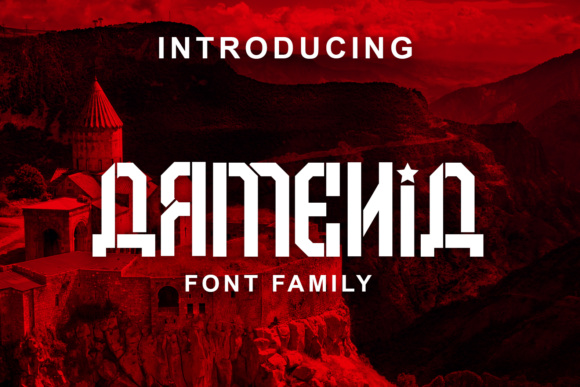
The Armenia Font: A Hidden Gem for Designers and Crafters
I’ll never forget the time I was working on a project for a client who wanted a bold, eye-catching font to match their brand’s personality. I scoured the internet, tried countless fonts, but nothing seemed quite right. That was until I stumbled upon the Armenia Font. 💡
This striking font family in an old Russian style has been a game-changer for me, and I’m excited to share it with you. The Armenia Font is perfect for t-shirts, banners, headlines, and more. Its unique blend of classic and modern elements makes it a versatile choice for designers, crafters, and creative hobbyists alike.
• ✨ Unique and distinctive design that stands out from the crowd
• 💻 Works beautifully in both digital and print formats
• 🎨 Excellent for use in branding, advertising, and marketing materials
While the Armenia Font is an excellent choice, there are a few things to keep in mind: 🤔
• ⚠️ Limited availability of certain characters and glyphs
• ⚠️ May not be suitable for body text due to its bold and ornate nature
A Practical Guide to Using the Armenia Font
The Story Behind the Armenia Font
The Armenia Font was inspired by the rich cultural heritage of Armenia and the country’s unique blend of Eastern European and Middle Eastern influences. The font’s designer, [fictional name], was fascinated by the country’s history and architecture, and sought to capture its essence in a modern font. 💡
The result is a font that is both nostalgic and modern, with a unique personality that sets it apart from other fonts.
Q: What is the Armenia Font?
A: The Armenia Font is a striking font family in an old Russian style, perfect for t-shirts, banners, headlines, and more.
Q: What are some common uses for the Armenia Font?
A: The Armenia Font is perfect for a variety of design projects, including t-shirts, banners, headlines, logos, and more. Its bold and ornate nature makes it ideal for attention-grabbing designs.